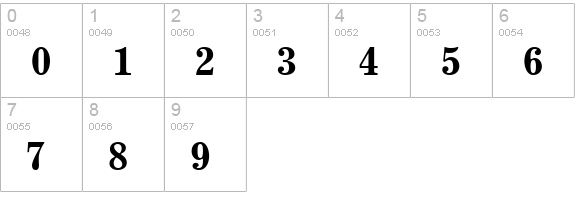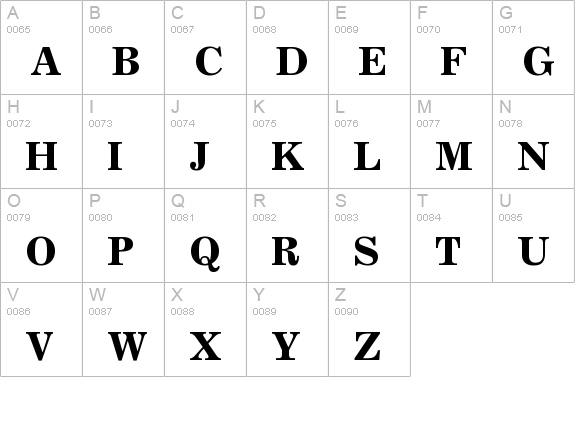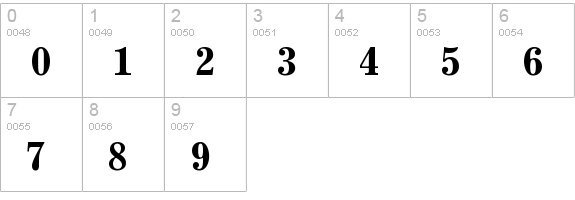
Centric SSi Bold is a strong, high-contrast variant in the Centric typeface family \xE2\x80\x94 well suited to headlines, attention-grabbing titles, and strong calls-to-action.
Centric SSi Bold is a striking and modern font that exudes confidence and sophistication. Its bold weight commands attention and makes a powerful statement in any design project. The strong, clean lines of Centric SSi Bold give it a contemporary edge, making it perfect for headlines, logos, and branding materials. What sets Centric SSi Bold apart is that it is available for free download at FontsMarket.com. This means that designers and creatives can easily access this premium font without any cost, making it a valuable addition to their font library. With its sleek aesthetics and versatility, Centric SSi Bold is sure to elevate any design and leave a lasting impression.